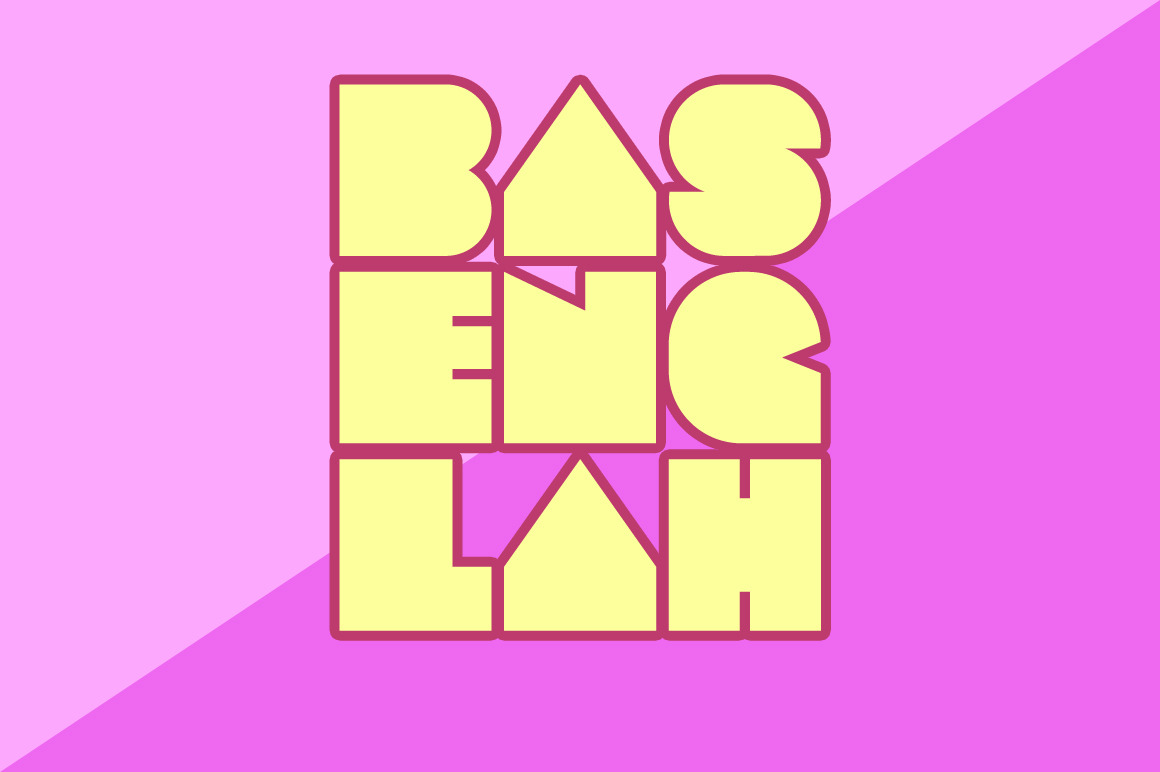
Basenglah Font Pack
Basenglah typeface is a retro font with 8 different style inside. Applicable for several styles ranging from pop art, retro, vintage, indeed flat designs.
solid, simple, cute, strong and cleary. looks good for your display, flyers, poster, book designs, quotes or etc.
The typeface featured :
- uppercase
- lowercase
- numbers
- some punctuation